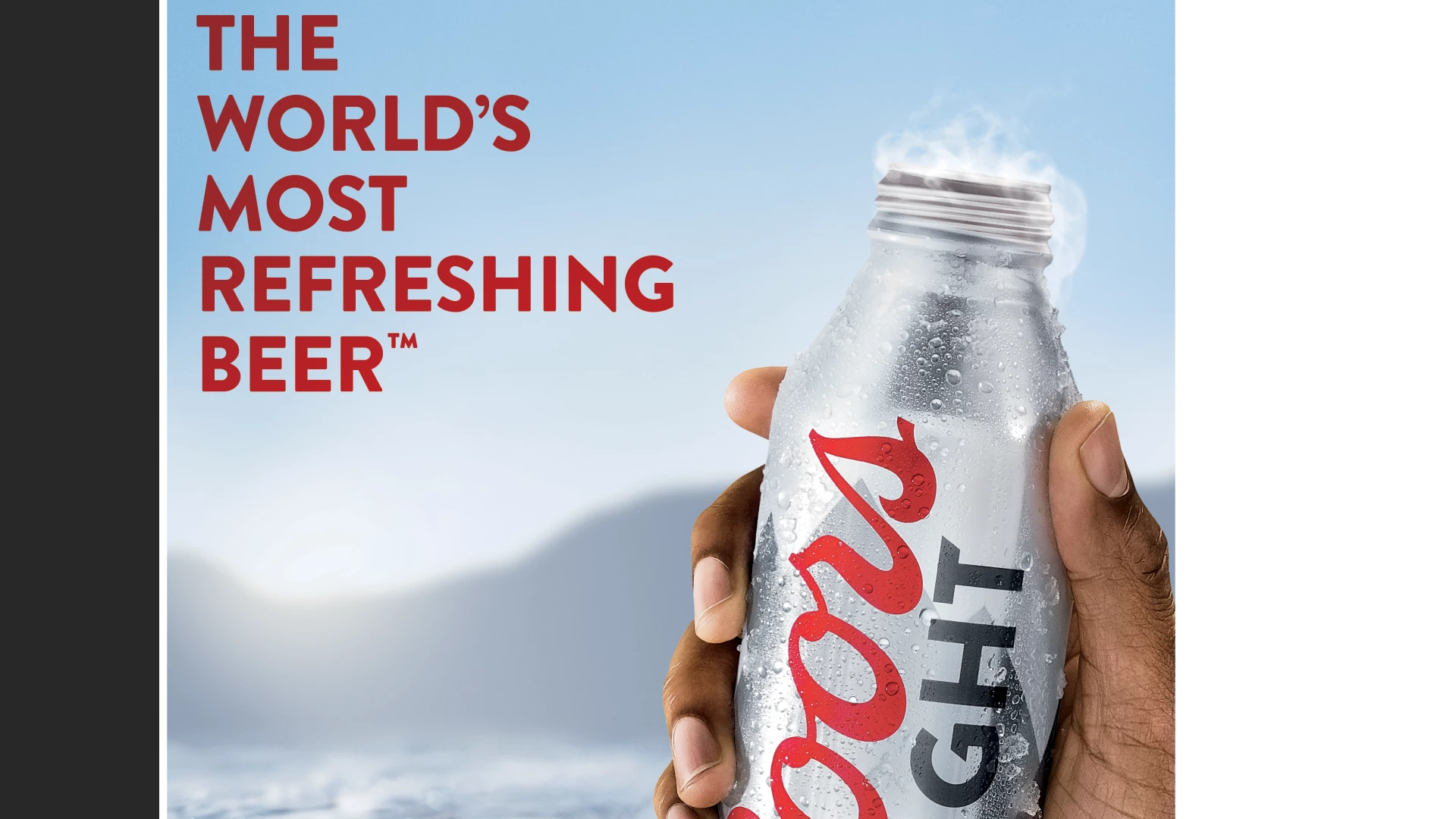
What's the name of this font? If it's converted to objects can I still obtain the name of font?
If text was converted to objects in Illustrator, but I wanted to know the name of the font, can I still do it in Illustrator?
Also, you can try to find the font with this option in Photoshop: Match fonts from an image |
For those looking for font matchers, in addition to WhatTheFont and Indentifont, FonstSquirrel has a good one.
Also: WhatTheFont has an app so you can use your phone to match fonts.
Whatthefont.com is great and Photoshop also, in addition Another nice option is Adobe Capture app on your iPhone
Looks like Brandon Grotesk (but the apostrophe is not - it looks like it's from some Transitional/Modern serif face)
correct. Brandon Grotesk (Black) and use comma for apostrophe.
Also, you can try to find the font with this option in Photoshop: Match fonts from an image |
You could cut out that portion and upload it to Whatthefont.com